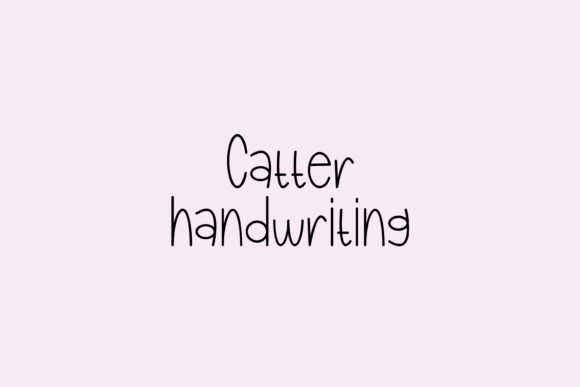
In a world teeming with homogenous fonts, Catter Font emerges as a captivating and personable handwritten masterpiece, designed to infuse life into your creative endeavors. Let your imagination run wild as Catter's graceful strokes dance across your screens, leaving an indelible mark on your designs. Its delightful quirks and whimsical charm will transform your projects into a symphony of visual elegance.
With Catter Font, the possibilities are limitless. Embark on a design adventure, crafting logos that radiate uniqueness, wedding invitations that exude romance, quotes that resonate with heartfelt emotions, advertisements that capture attention, and printed materials that leave a lasting impression. Unleash your creativity in magazines, where Catter's presence will command attention and elevate the impact of your message.
Step into a world where your designs take center stage, where every stroke of Catter Font tells a captivating story. Experience the joy of creating with a font that ignites your imagination and sparks your creativity. With Catter Font, you hold the key to unlocking a treasure trove of design possibilities, transforming ordinary projects into extraordinary works of art.